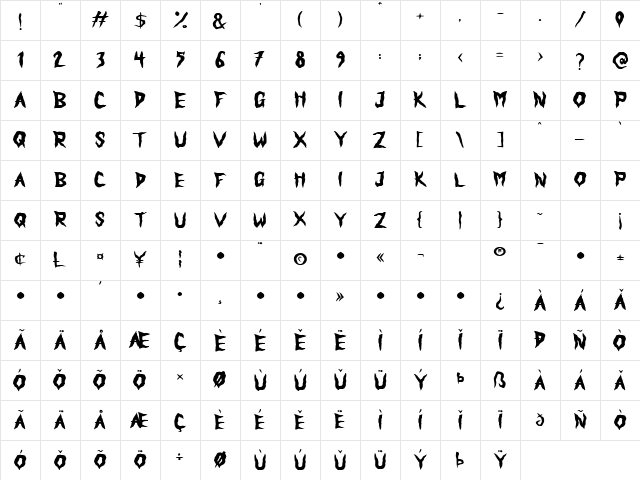
Monster Scream Regular Free Font
Monster Scream Regular
Foundry: Arendxstudio
Designer: Arendxstudio
Design Context for Monster Scream
Monster Scream is a composed and adaptable typeface that performs quietly and consistently across a wide range of design contexts.
Pro Tip: Use Monster Scream in both headline and body roles to test its range before committing to a single application.